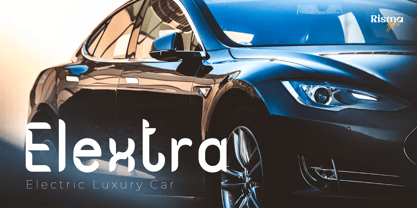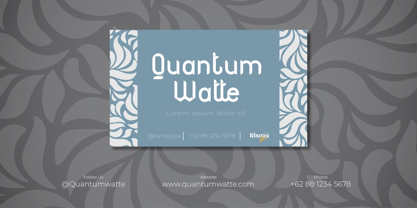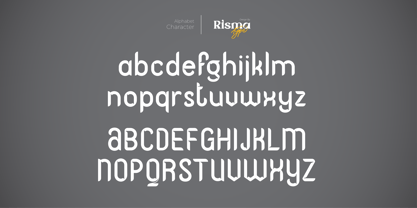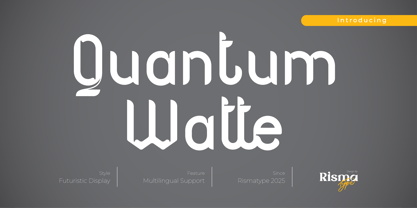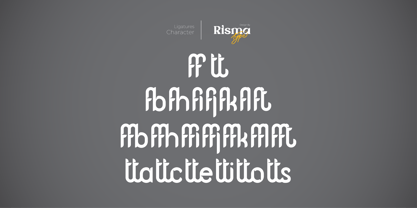
Quantum Watte
by Risma Type
The Quantum Watte Font Family was designed by Risma Mulyasari and published by Risma Type. Quantum Watte contains 2 styles and family package options.
✨ Quantum Watte ✨
Futuristic and Innovative Display Font
Quantum Watte is a futuristic display font crafted to embody cutting-edge design and bold innovation. With its sleek geometry and dynamic forms, this font is ideal for projects that demand a forward-thinking and contemporary aesthetic, such as:
• Tech Branding & Logos: Make a visionary and impactful statement.
• Web & UI Designs: Enhance interfaces with modern precision.
• Posters & Advertising: Create attention-grabbing visuals that captivate.
💎 Redefine the future with every character of Quantum Watte.
Bring a touch of futurism and innovation to your designs with a font that stands out in any application.